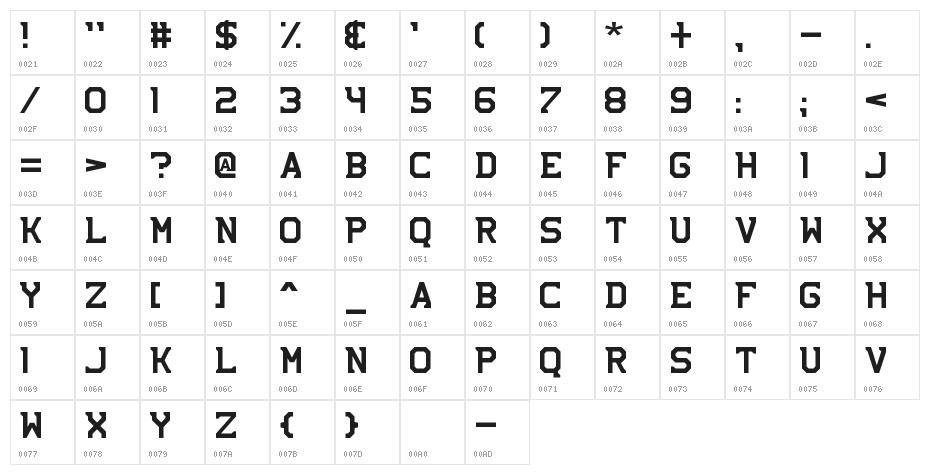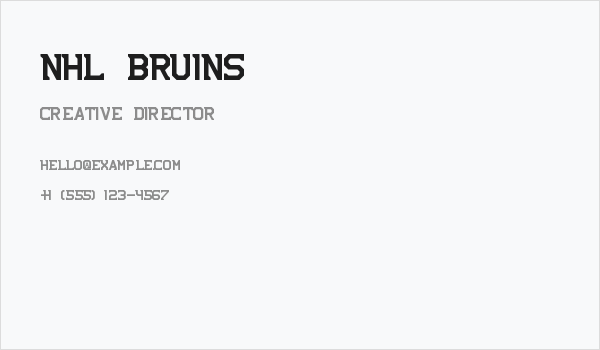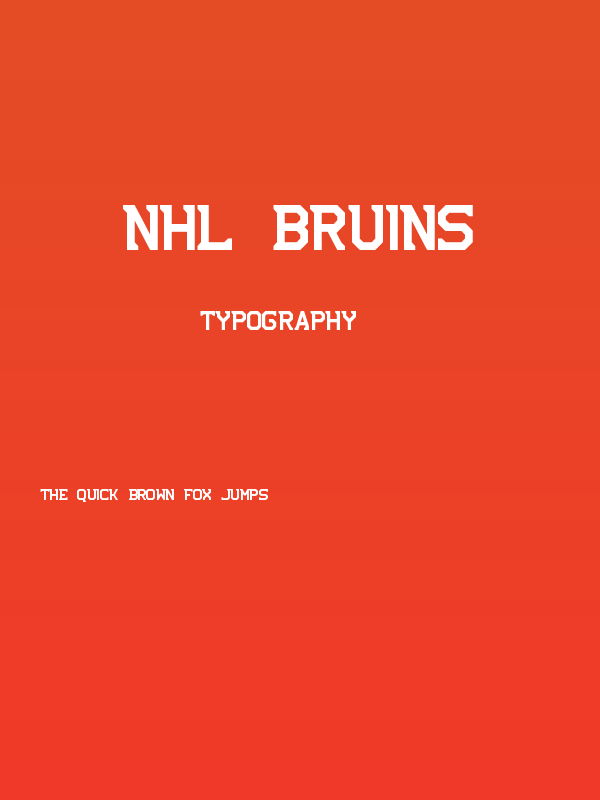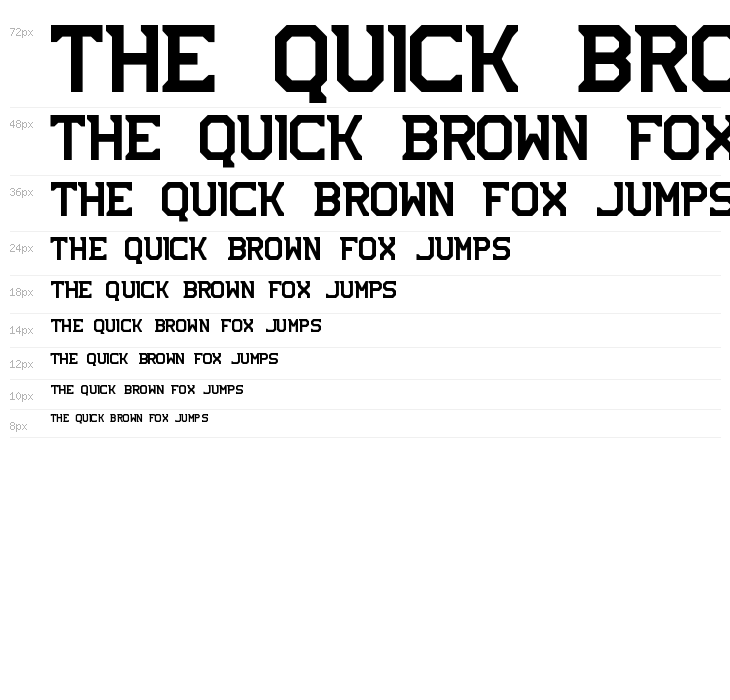
NHL Bruins Font
NHL Bruins Description
This font features a bold and geometric design with sharp angles and a strong presence. The characters are constructed with thick lines and a uniform stroke width, giving it a robust and impactful appearance. The uppercase letters are particularly striking, with a blocky and industrial feel that suggests strength and durability. The numerals and special characters maintain this cohesive style, ensuring consistency across all elements. This font's design is reminiscent of sports team branding, making it ideal for applications that require a bold and assertive typeface.
| Use Case | Logos, Headlines |
| Proposed Projects | Ideal for sports branding, team logos, merchandise, and promotional materials. |